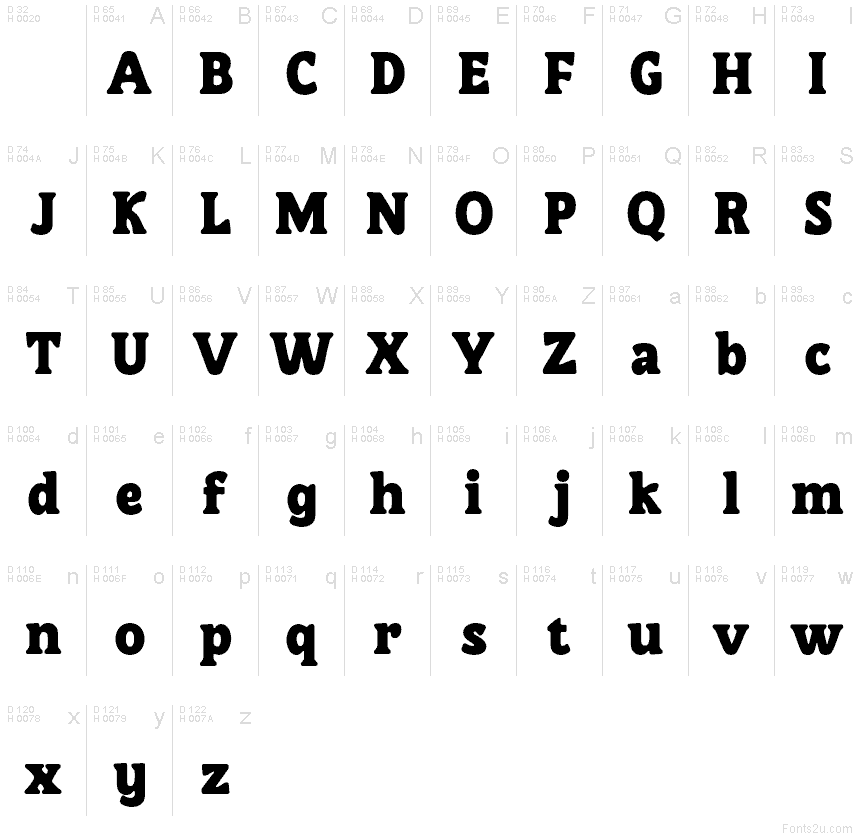
CSDovieDrawn-Regular Demo
CS Dovie Drawn font by Craft Supply Co. is a bold, handwritten serif with retro-inspired characteristics. This typeface is perfect for projects that seek a vintage aesthetic and timeless appeal, but it’s also dripping of friendliness and modernity. The best combination of classic beauty and spontaneous playfulness takes place between its lines which feature distinctive slab serif traits.